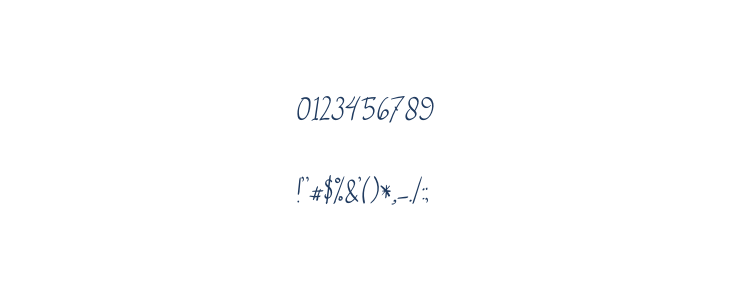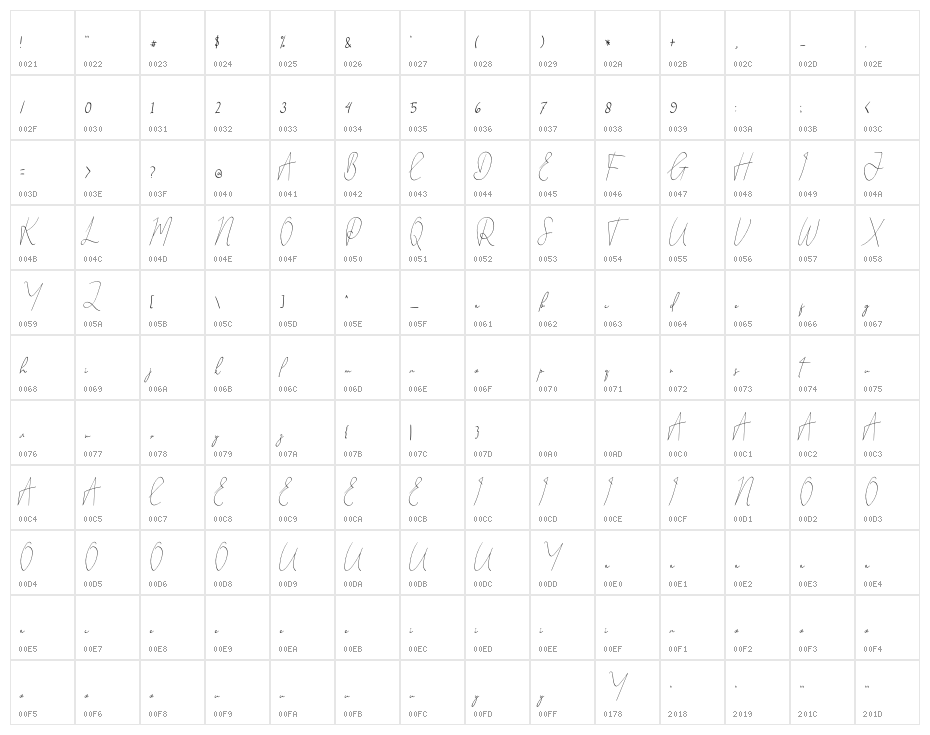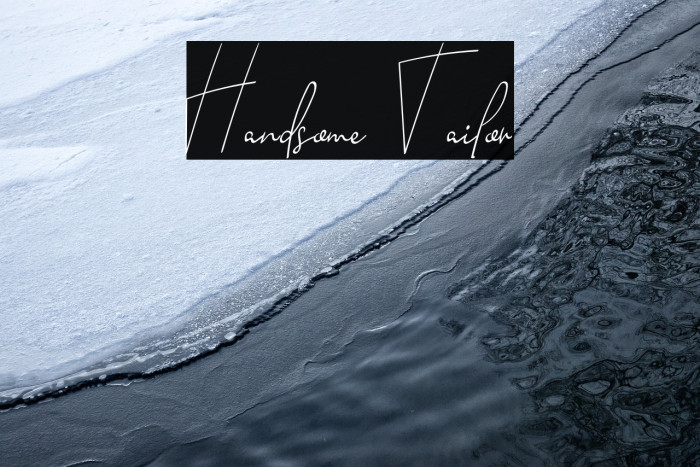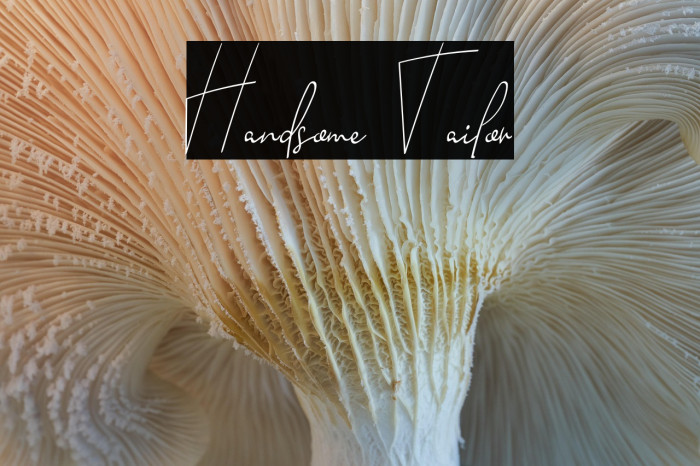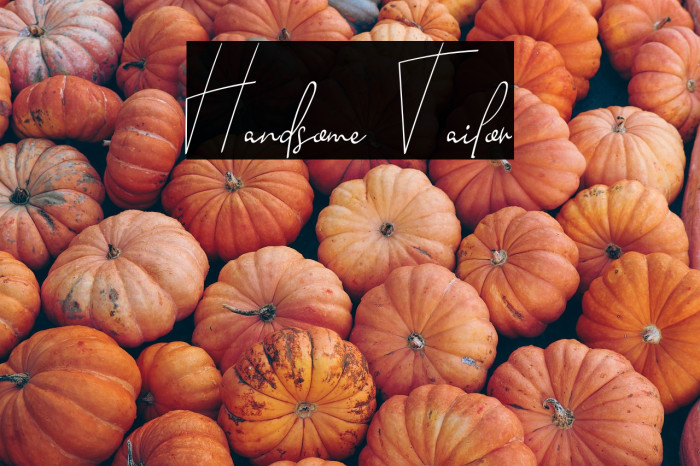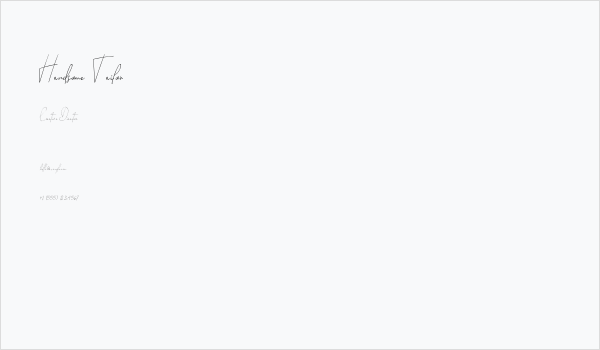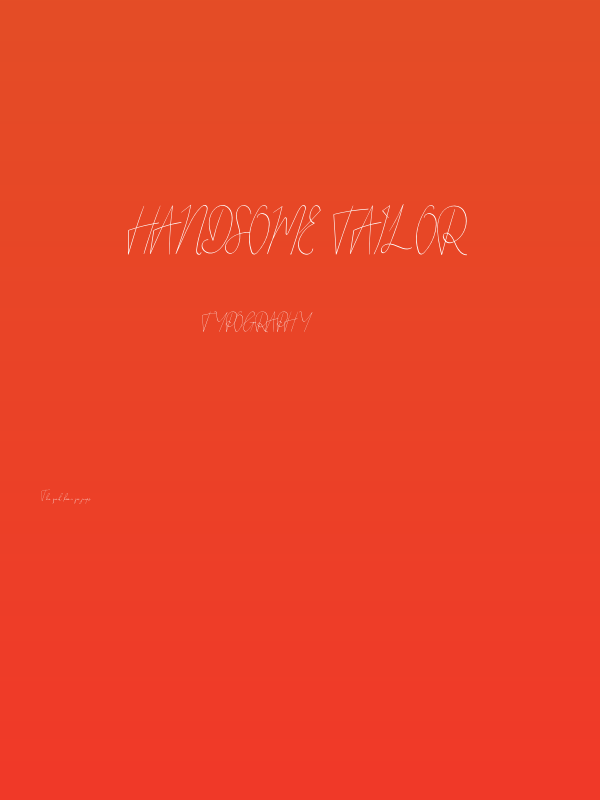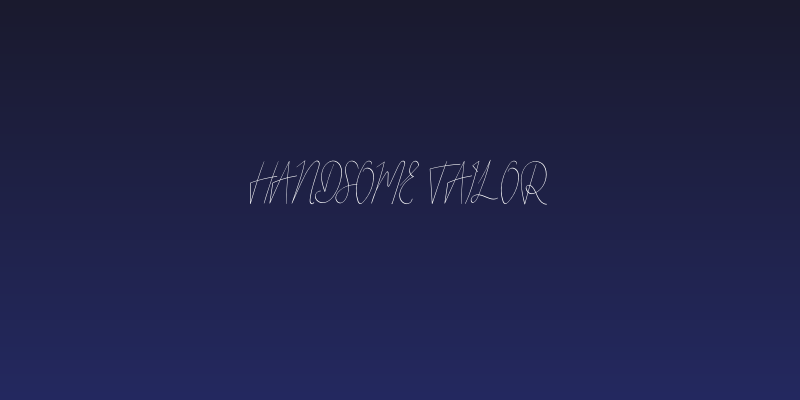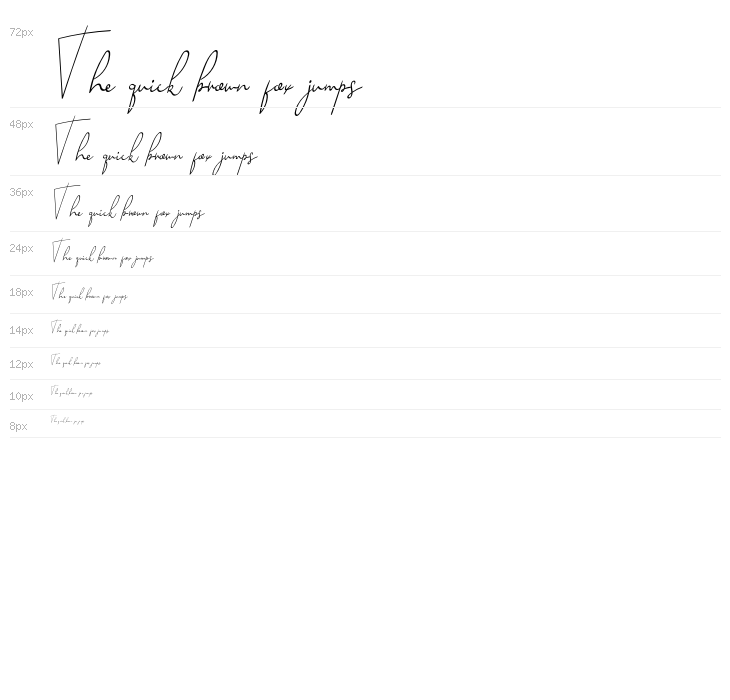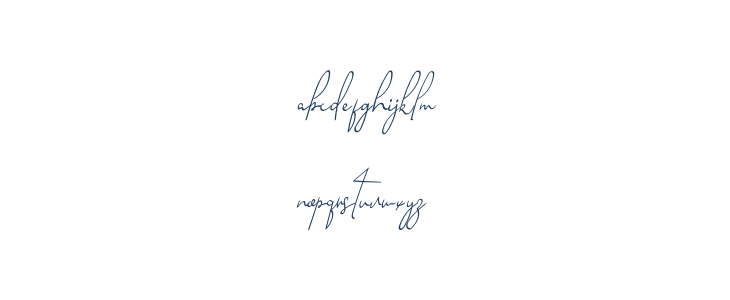
Handsome Tailor Font
Handsome Tailor Description
This elegant script font features a delicate and flowing design, characterized by its thin, graceful strokes and a natural handwritten appearance. The uppercase letters exhibit a sophisticated flair with elongated lines and subtle curves, while the lowercase letters maintain a consistent fluidity, enhancing the overall aesthetic. The numerals and special characters are crafted with the same attention to detail, ensuring a cohesive look across all elements. This font's refined style makes it suitable for projects that require a touch of elegance and personalization.